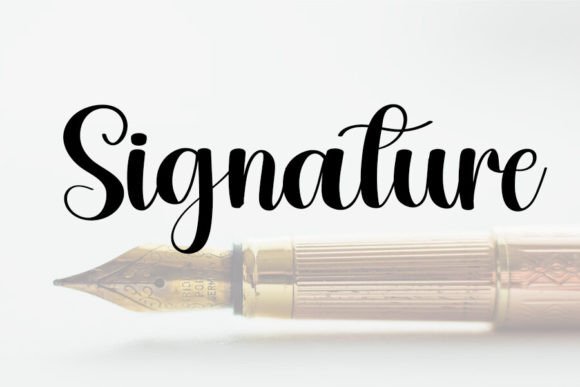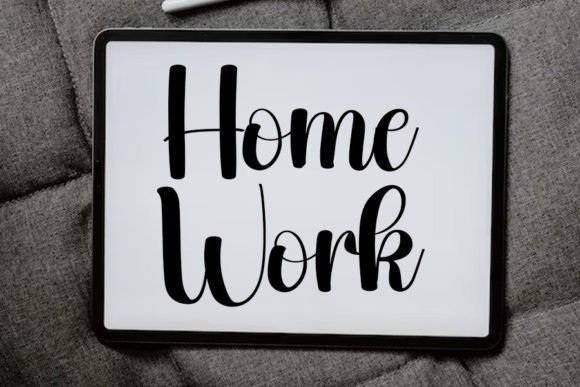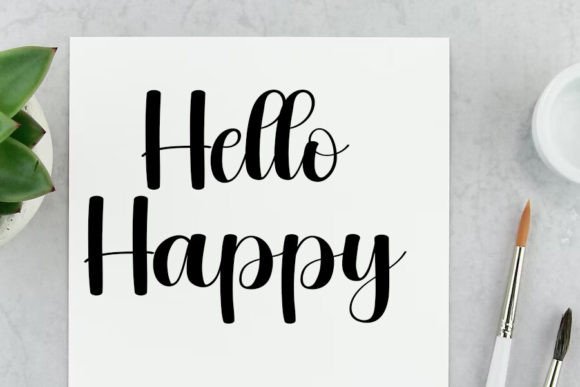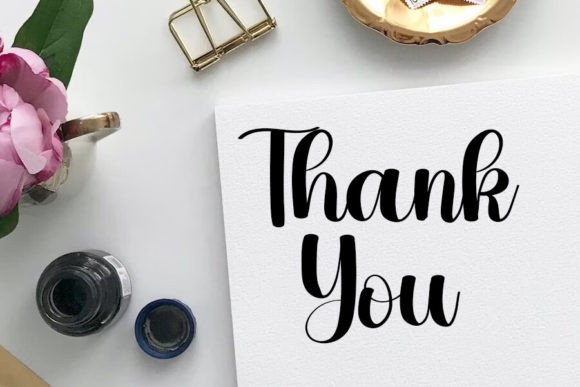
Embracing the Art of Handwritten Elegance
Do you remember the first time you saw a handwritten note from a loved one that made your heart skip a beat? Perhaps it was a sweet message from a family member or a thoughtful gesture from a friend. Whatever the occasion, there’s something special about the handwritten touch that makes us feel seen and loved.
That’s where the Brother Sister Font comes in – a beautiful script font that captures the essence of handwritten elegance. Designed to add a personal touch to your designs, this font is perfect for wedding invitations, thank you cards, quotes, and more. With its stylish and refined look, the Brother Sister Font is a valuable asset for designers seeking to elevate their projects with a touch of sophistication.
Brother Sister Font Key Features
- Size: The font family includes multiple weights, from Thin to Black, with various styles, allowing for a high degree of customization and flexibility.
- Unique Characteristics: Brother Sister Font features a unique, hand-drawn aesthetic with a mix of elegant and playful elements, making it suitable for a variety of design projects.
- Language Support: Brother Sister Font supports a wide range of languages, including Latin, Greek, and Cyrillic alphabets, making it a versatile choice for global design projects.
- Font Pairing: The font’s unique characteristics make it an excellent choice for pairing with other fonts, allowing designers to create visually appealing and harmonious typography.
Brother Sister Font Review
Overall, I’d say the Brother Sister Font is a delightful, whimsical script font that can add a touch of elegance to various design projects. ✨ The flowing connections between the letters and the subtle flourishes make it a great choice for projects that need a bit of sophistication and charm.
- Works well in titles, headings, and short paragraphs where the elegant script can shine.
- Looks great in digital design, particularly on websites and social media platforms.
- Supports both uppercase and lowercase letters, making it versatile for a wide range of applications.
However, there are a few limitations that should be kept in mind. ⚠️ The font may not be ideal for body text due to its script nature, which can make it harder to read at larger sizes. Additionally, some characters might not be as detailed as others, which could be a concern for designers who require precise typography.
Overall, I’d give the Brother Sister Font 4 out of 5 stars. It’s a beautiful font that excels in certain situations, but its limitations should be considered before using it in more complex or demanding projects. With careful selection and use, it can be a valuable addition to any designer’s toolkit.
Getting the Most Out of Brother Sister Font
For optimal results, use the Brother Sister Font in conjunction with a clean and simple design. Avoid using it in large blocks of text, and instead use it to highlight key phrases or create a visually appealing title.
The Brother Sister Font is ideal for use in:
– Children’s book covers and illustrations
– Party invitations and decorations
– Food and beverage branding
– Educational materials and worksheets
Alternatives to Brother Sister Font
Playfair Display is a luxurious and elegant script font, perfect for creating a high-end feel in your designs. It features a mix of serif and script elements, making it ideal for use in luxury brands, fashion, and high-end products.
Comparison to Brother Sister Font: While both fonts have a script-like feel, Playfair Display is more ornate and luxurious, making it a better choice for high-end designs. Brother Sister Font, on the other hand, has a more casual and friendly feel, making it suitable for everyday use.